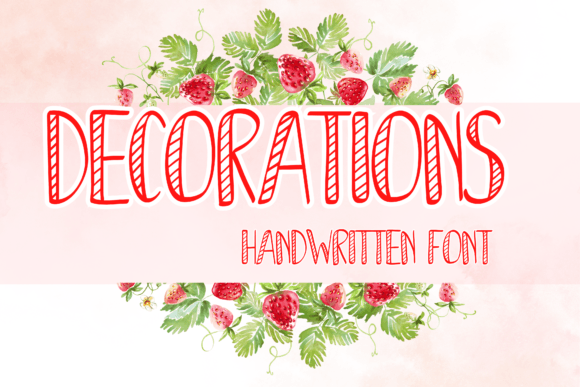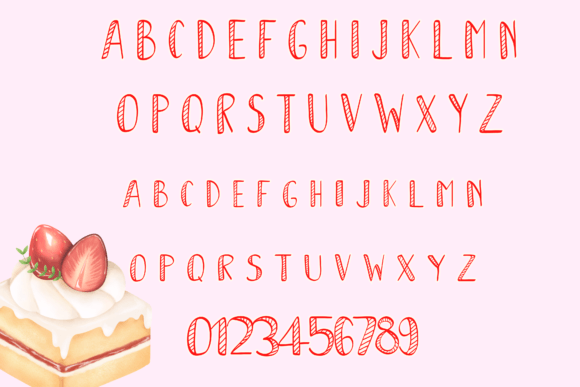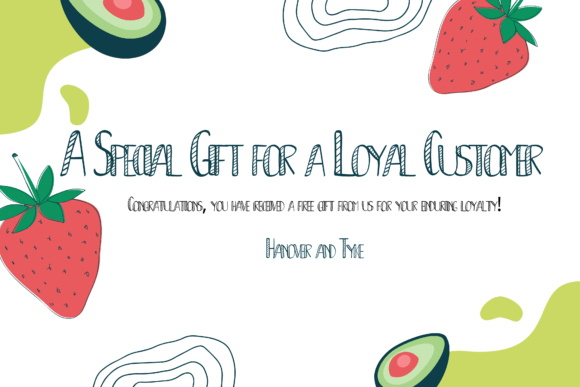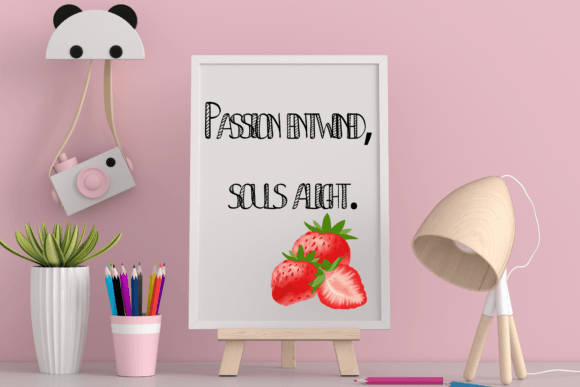
Decorations Font
About the Decorations Font
Presenting Decorations Font, a unique and stylish typeface that will make your work stand out. Decorations is a handwritten font. You can use it for taking notes, writing a diary, or making greeting cards. However, you can still use it for other designs, such as banners, content, mugs, cards, shirts, stationery, social media posts, and more!
Decorations Font’s casual, handwritten style shines in projects requiring a personal touch. It’s ideal for branding focused on handmade goods, artisanal products, or small businesses emphasizing warmth and authenticity. Use it effectively for short headlines, social media graphics, and packaging elements where its informal character adds charm.
However, avoid using Decorations for large blocks of body text or UI elements; its legibility suffers at smaller sizes. Its informal nature also clashes with projects needing a corporate or highly professional feel.
Pair Decorations with a clean sans-serif like Open Sans for balance, or a playful, rounded serif like Playfair Display for a more traditional yet still approachable aesthetic. Consider a minimalist geometric sans-serif for a modern contrast if a bolder look is desired.
Decorations Font Usage Examples
Decorations Font Example